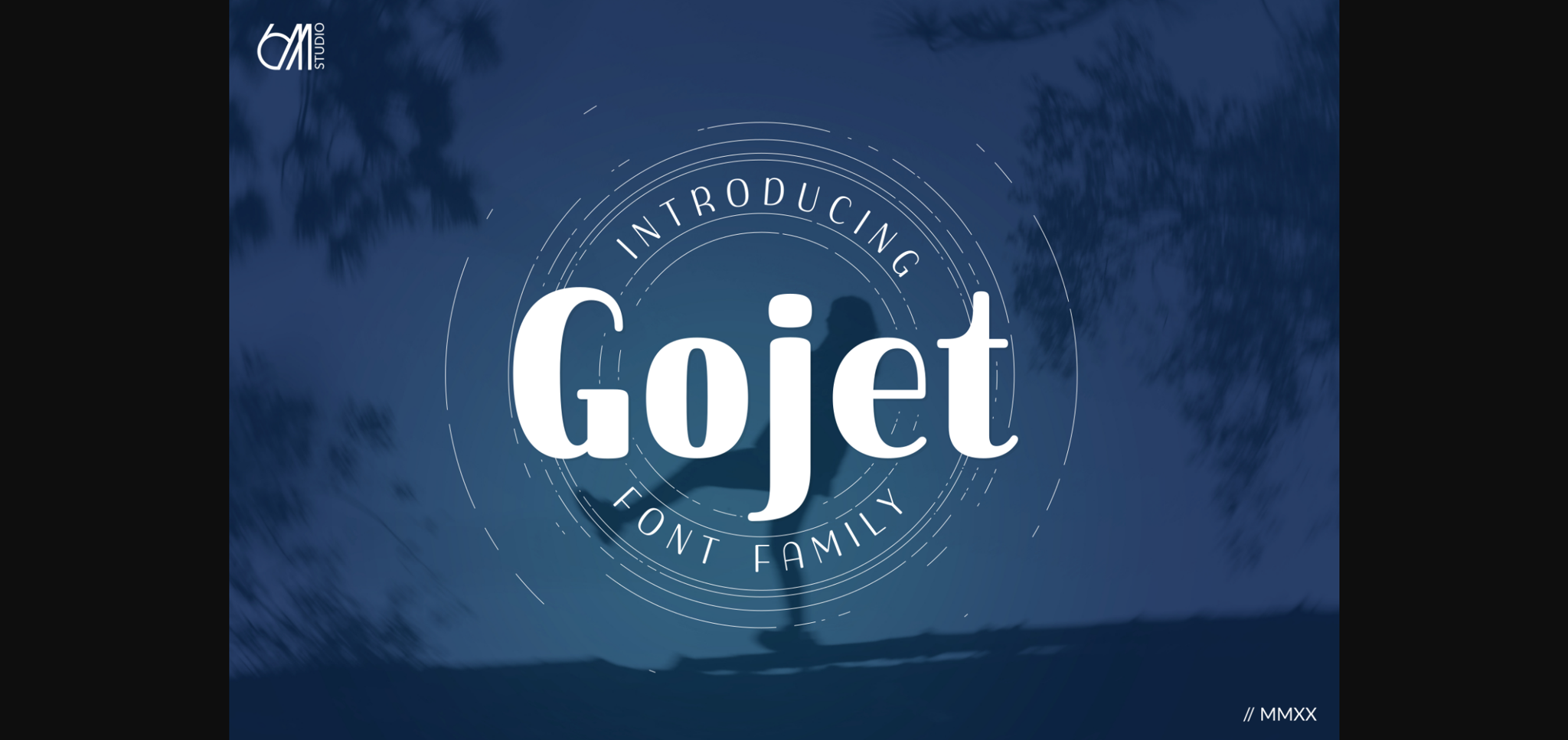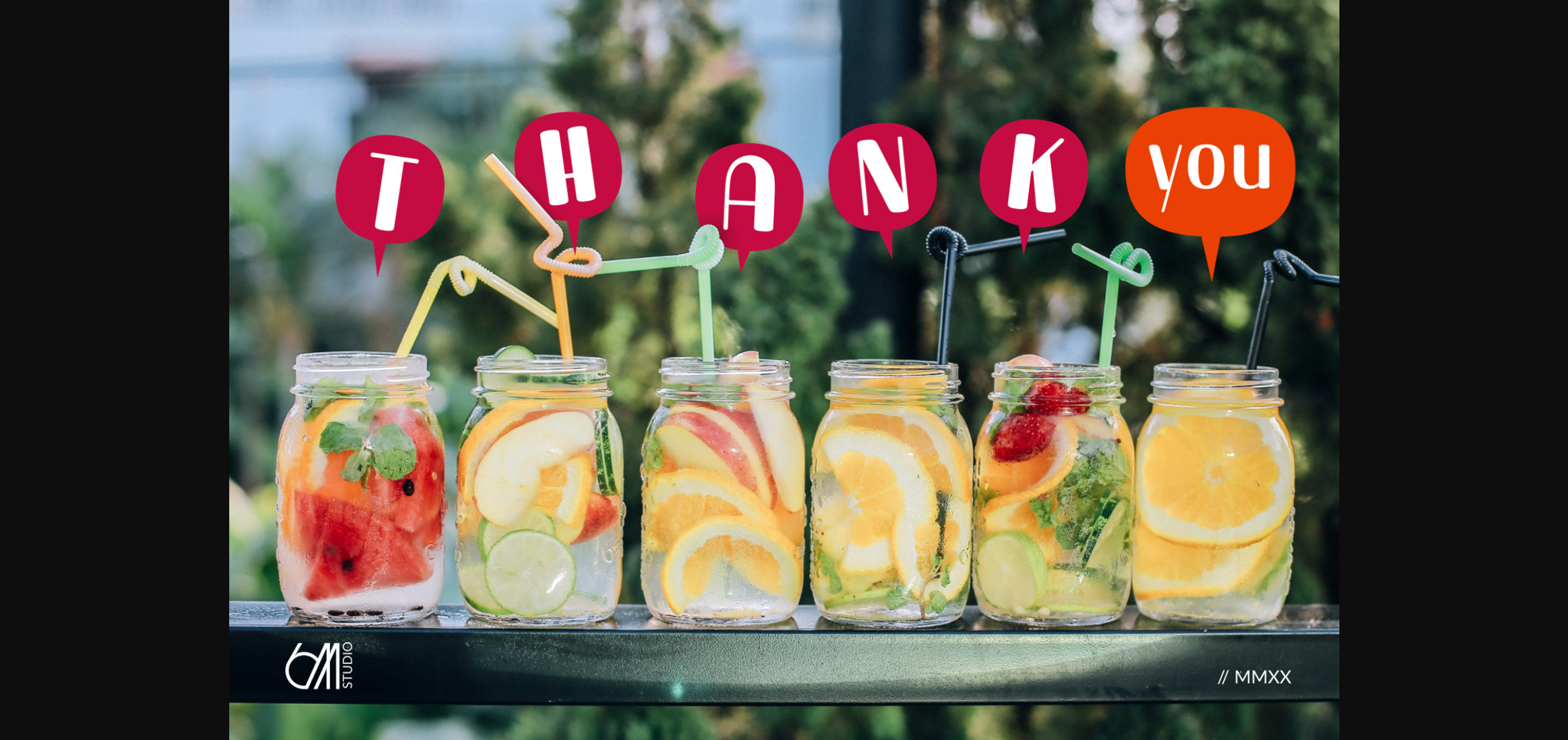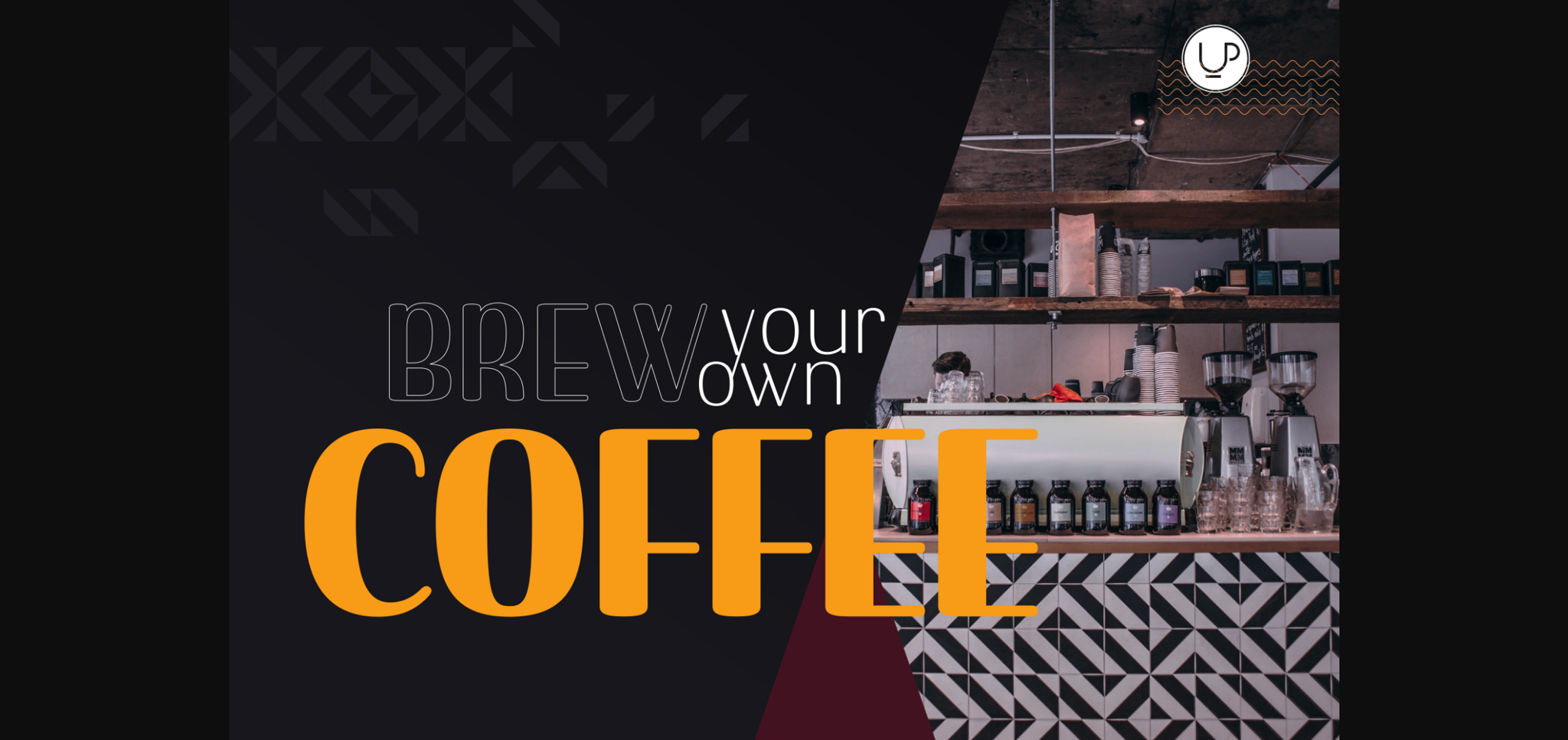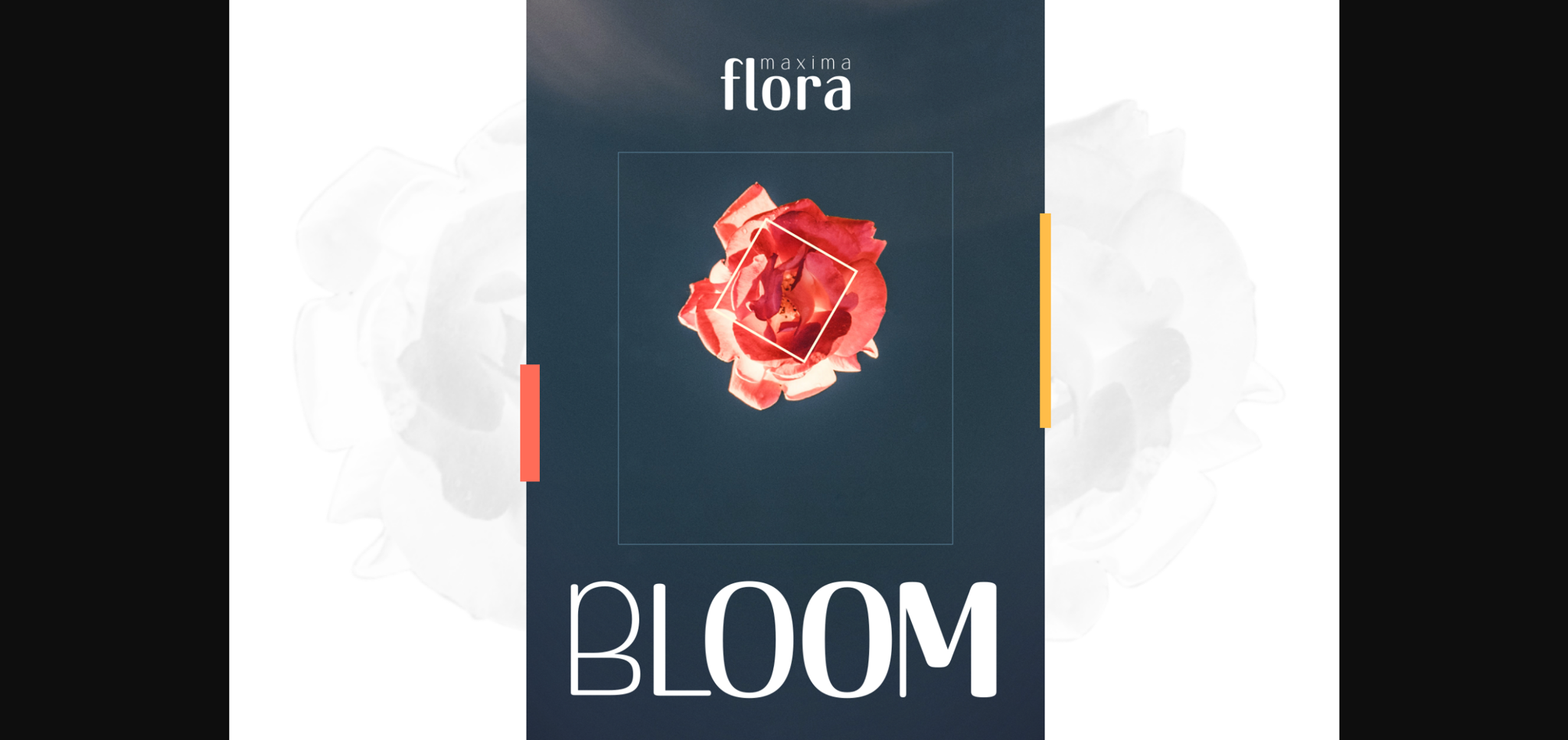
About Gojet Font
Gojet is a bold and modern sans serif font. This original look will appeal to a wide range of crafty ideas, from letterheads and titles, to stationery.